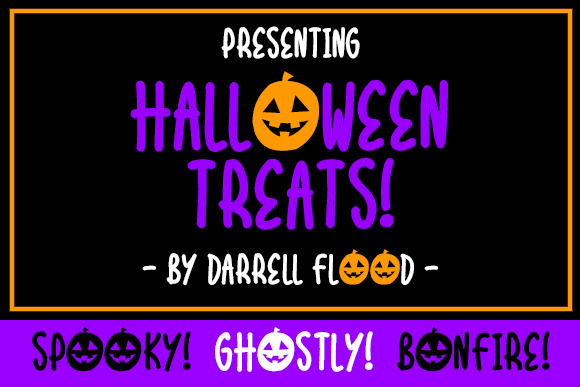
Halloween Treats Font for Cute Business Branding
Using Halloween Treats Font for Bakery Packaging and Seasonal Menus
When I first opened the file for Halloween Treats, I was standing in my kitchen surrounded by sample boxes for an upcoming autumn pop-up, searching for a typeface that could bridge the gap between professional bakery branding and festive fun. As one of the most versatile Display Fonts available for seasonal commerce, this typeface immediately solved a common design problem: how to look spooky without looking amateurish or messy on product packaging. For small business owners managing physical goods, typography is often the difference between a product that looks homemade and one that looks retail-ready, and this specific font offers a polished solution for edible brands.
In my testing with pastry box labels and café menu boards, Halloween Treats proved to be exceptionally legible even when scaled down for ingredient lists or pricing stickers. The letterforms strike a careful balance; they are undeniably themed, yet they maintain enough structural integrity to function as serious commercial typography rather than just a novelty gag. When applied to a kraft paper sticker sealing a cookie bag, the font’s weight held up beautifully against the textured background, ensuring customers could read the flavor name instantly. This readability is crucial for food businesses where clarity equals safety and trust. Unlike many jagged horror fonts that sacrifice function for aesthetic, this typeface retains a friendly, approachable geometry that invites customers to pick up the product rather than recoil from it.
For bakery owners updating their seasonal offerings, this font works best as a primary headline element. I found it particularly effective when used for limited-edition flavor names like "Pumpkin Spice" or "Midnight Chocolate," while keeping the nutritional information and legal disclaimers in a clean, neutral sans serif. This hierarchy ensures your branding feels festive but remains compliant and easy to scan. The visual warmth of the letters complements warm-toned photography and rustic packaging materials, creating a cohesive unboxing experience that encourages social media sharing. If you are printing directly onto boxes or using pre-printed sleeves, the consistent stroke width of Halloween Treats ensures crisp reproduction across different print methods, from digital labels to offset packaging.
Halloween Treats for Comic Style Crafts and Cartoon Product Labels
Creative entrepreneurs selling art prints, stickers, or children’s apparel will find that Halloween Treats serves as a perfect anchor for merchandise that leans into comic and cartoon aesthetics. Because Halloween Treats is a spooky yet cute Halloween font designed specifically for this niche, it eliminates the need to hand-letter every title for your craft fair displays or Etsy listings. In my review of digital mockups for enamel pins and vinyl decals, the font’s playful character added immediate perceived value to simple graphic designs, making them feel like part of a larger, intentional collection rather than isolated doodles.
The true strength of this typeface for crafters lies in its ability to convey personality without overwhelming the artwork itself. When designing tags for handmade plushies or labeling candle jars with whimsical scents, the rounded edges and bouncy baseline create a sense of movement and joy. This is essential for sellers targeting a younger demographic or families who want holiday decor that isn't terrifying. I tested this font on a series of soap belly bands and greeting cards, noting that it pairs effortlessly with illustrated icons like bats, ghosts, or candy corn. The typography acts as a frame for your illustrations, guiding the eye through the design composition naturally.
From a production standpoint, Halloween Treats is optimized for both screen and print, which matters immensely for online sellers creating listing photos. On mobile screens, where most craft shopping happens, the thick strokes remain distinct and do not pixelate or blur at smaller sizes. This technical reliability means you can use the same font file for your website banner, your Instagram story templates, and your physical thank-you cards, maintaining brand consistency across every touchpoint. For makers producing high volumes of items during the busy fall season, having a reliable, commercially licensed display font saves hours of custom lettering time while ensuring every piece of inventory looks professionally branded.
Pairing Halloween Treats Display Fonts with Professional Typography
To maximize the commercial impact of Halloween Treats, business owners must understand how to pair it effectively with supporting typefaces to create a balanced, readable layout. While this font shines as a standalone header, relying on it for body copy or detailed information will hurt readability and dilute its special charm. In my branding consultations, I always recommend anchoring this playful display style with a sturdy, modern sans serif or a classic serif font for secondary text. This contrast highlights the unique character of the Halloween font while ensuring your customer receives all necessary information clearly.
- Headline Hierarchy: Use Halloween Treats exclusively for 3-5 word phrases, product names, or sale announcements to maintain visual impact.
- Body Copy Support: Pair with open-sans or geometric sans serif fonts for descriptions, prices, and contact details to ensure accessibility.
- Color Strategy: Let the font carry the thematic weight by using it in orange, purple, or black, while keeping supporting text in neutral grays or creams.
- Spacing Adjustments: Slightly increase tracking (letter spacing) when using this font in all-caps to prevent the decorative elements from touching.
- Background Contrast: Ensure high contrast between the font color and background texture, especially on dark packaging where intricate details might get lost.
This strategic pairing approach transforms a seasonal font from a temporary decoration into a core component of your brand identity system. By treating Halloween Treats as a premium accent rather than a default setting, you signal to customers that your business pays attention to detail. Whether you are designing a Shopify homepage banner or a printed flyer for a harvest festival, this typographic discipline ensures your marketing materials look expensive and trustworthy. Remember to check the specific licensing terms included with your download to confirm commercial usage rights for client work, merchandise, or digital templates, ensuring your creative investment is fully protected as you scale your seasonal sales.
The psychological effect of cute-spooky typography should not be underestimated in retail environments. It lowers barriers to entry and creates a welcoming atmosphere that encourages browsing and impulse purchases. When used consistently across email newsletters, social media captions, and in-store signage, Halloween Treats reinforces a narrative of fun and celebration that aligns perfectly with consumer sentiment during October. For service-based businesses like photographers or party planners, using this font in portfolio headers or package brochures communicates niche expertise and enthusiasm for the season. Ultimately, investing in quality display fonts like this is an investment in your business's emotional connection with your audience, turning casual shoppers into loyal fans who appreciate the extra effort you put into creating a memorable experience.